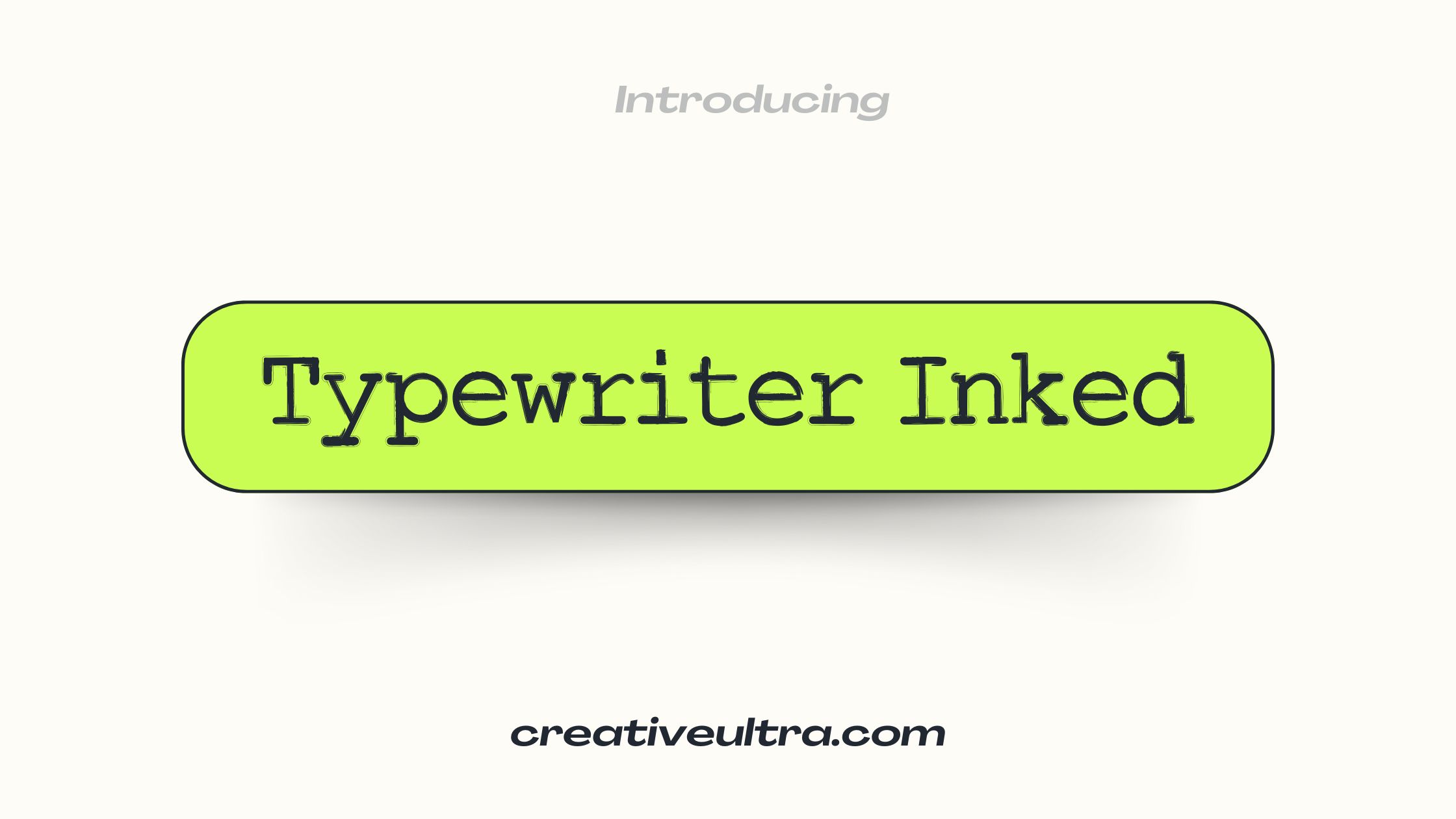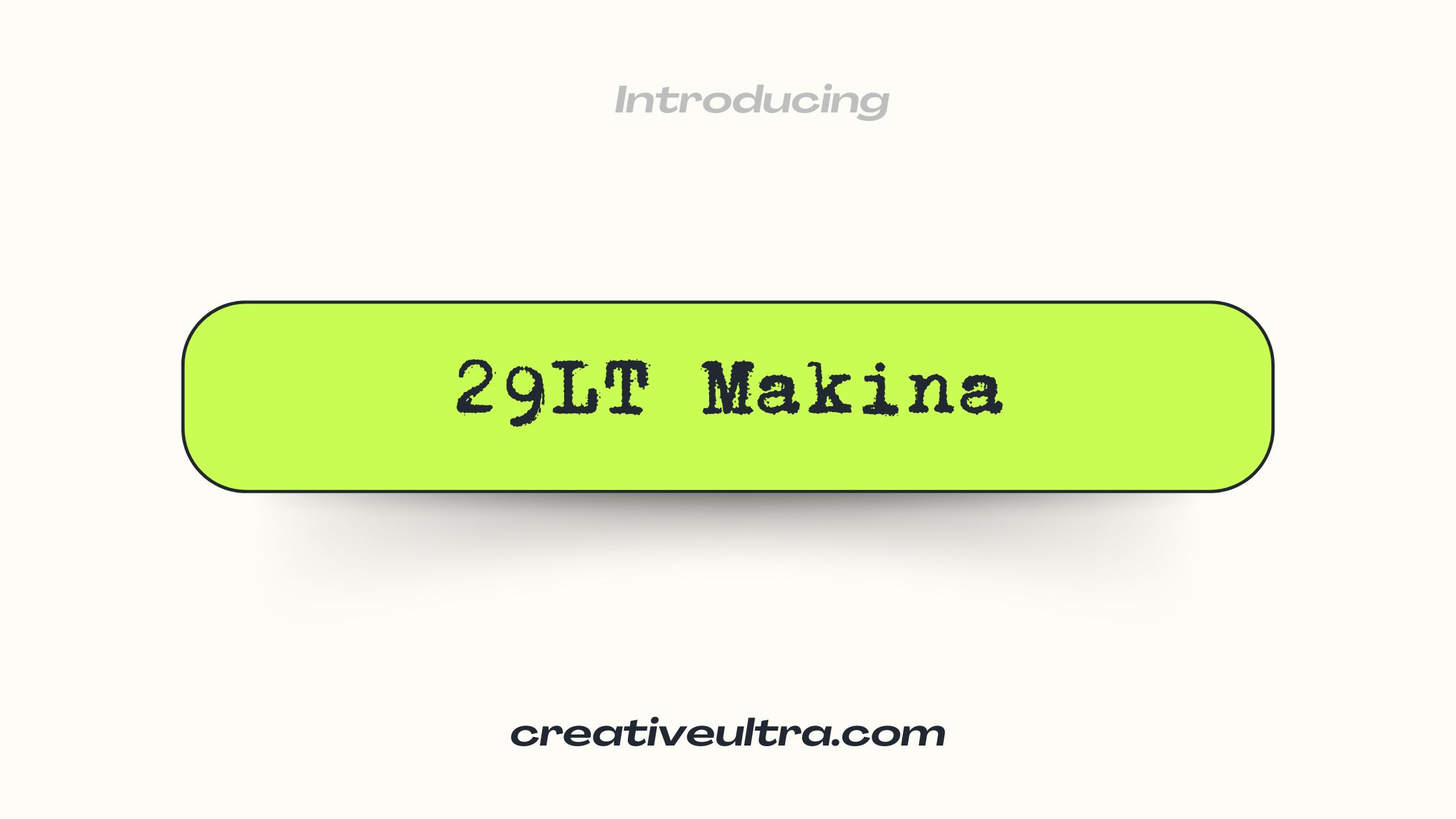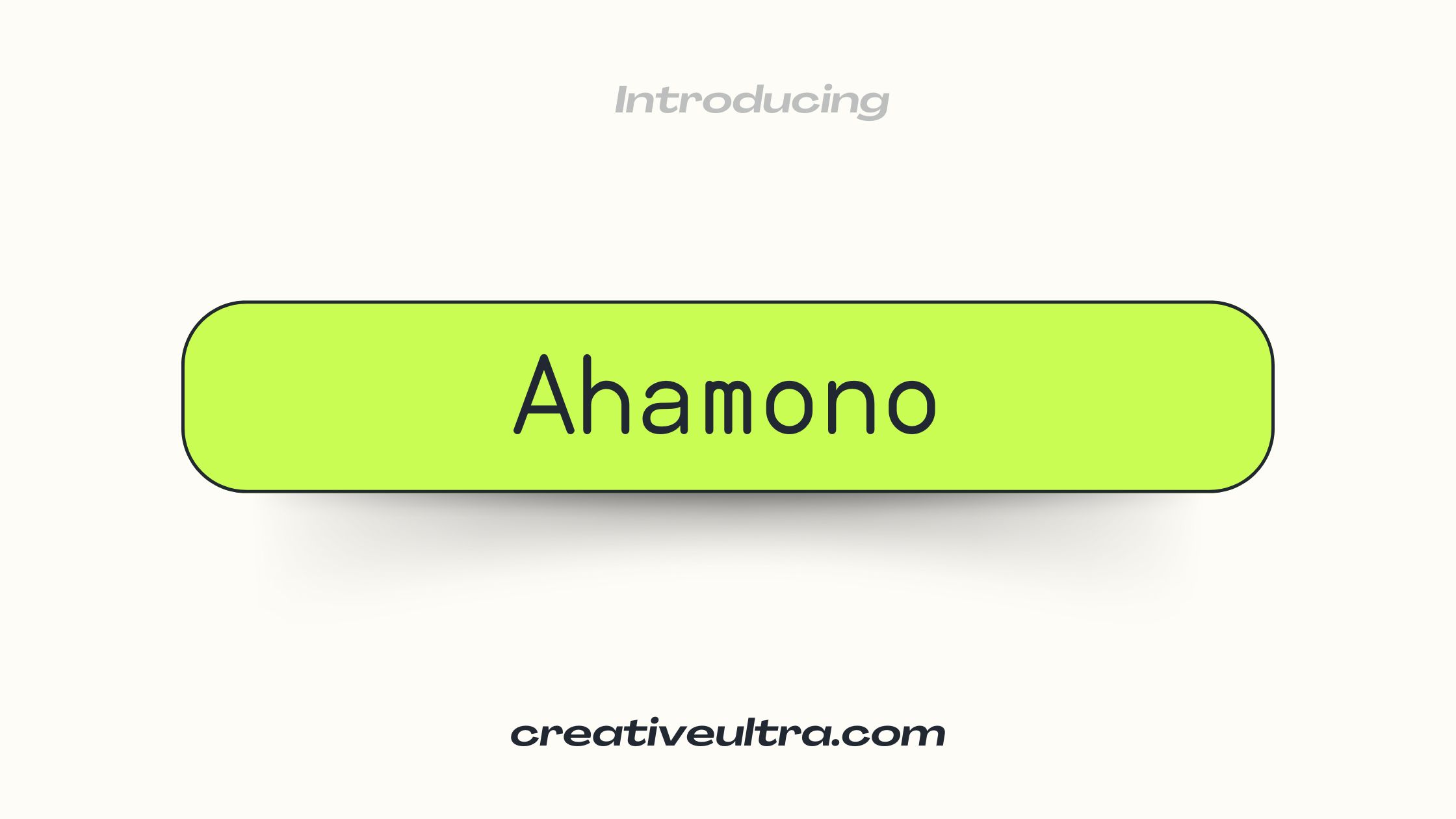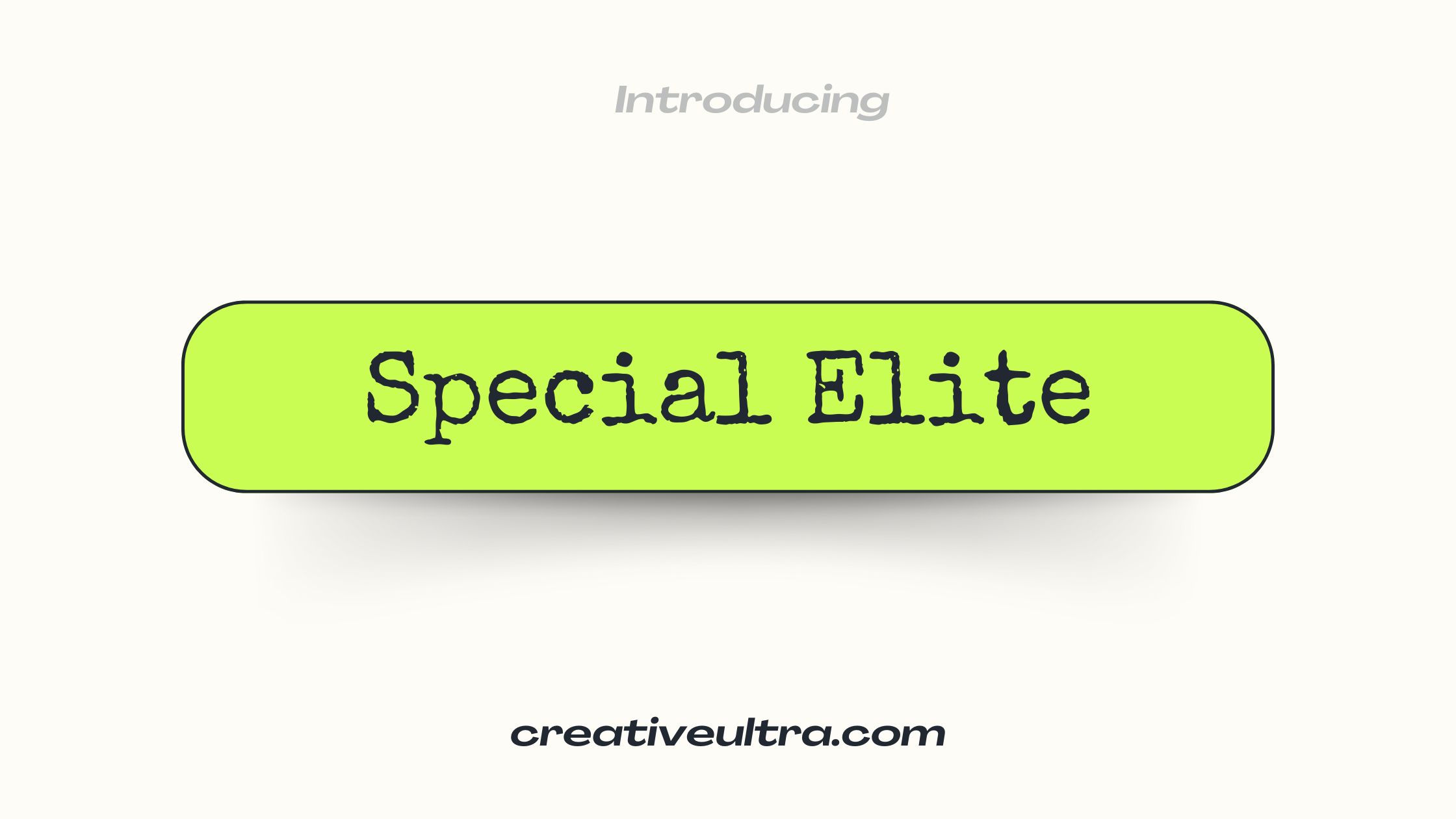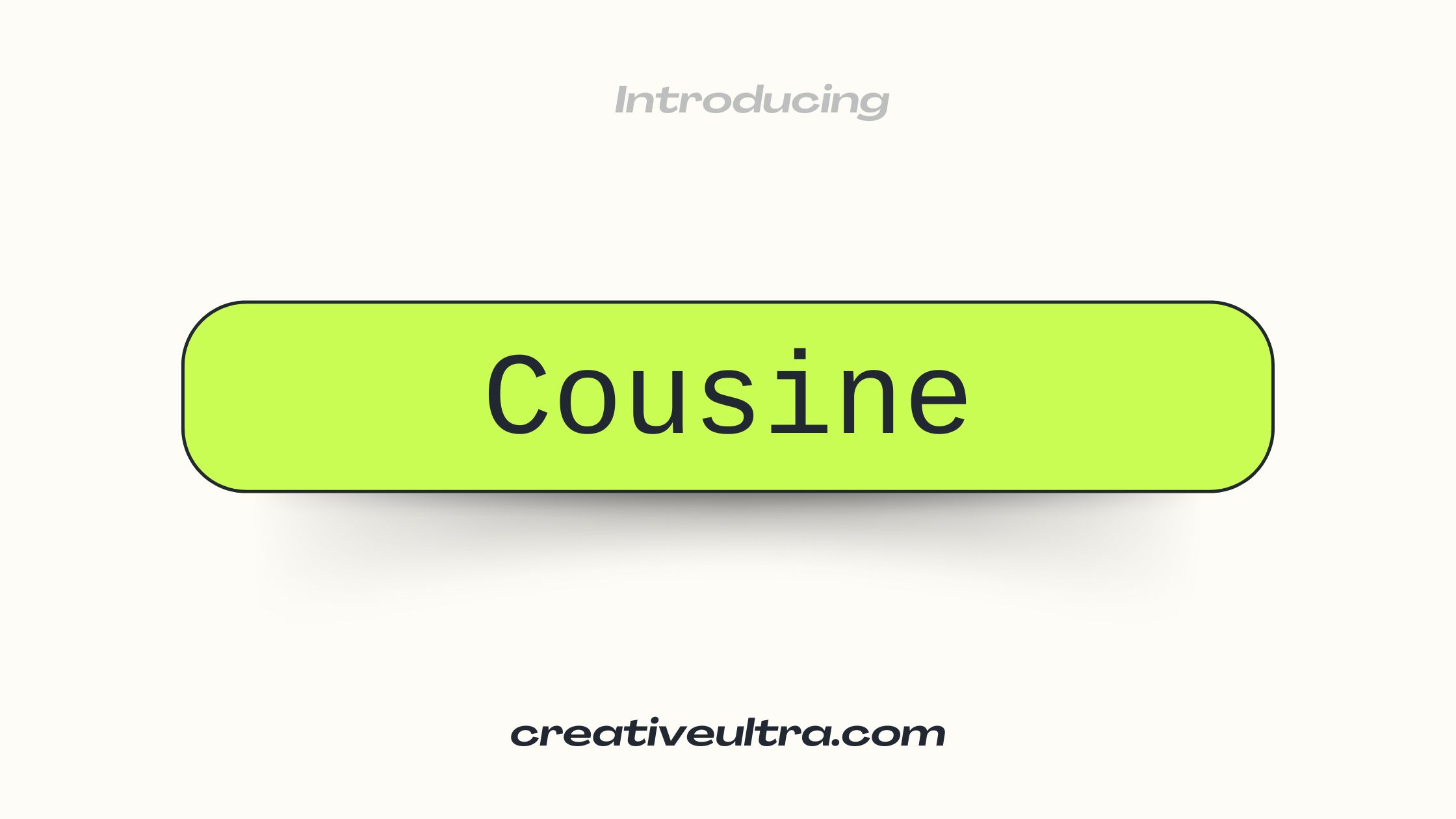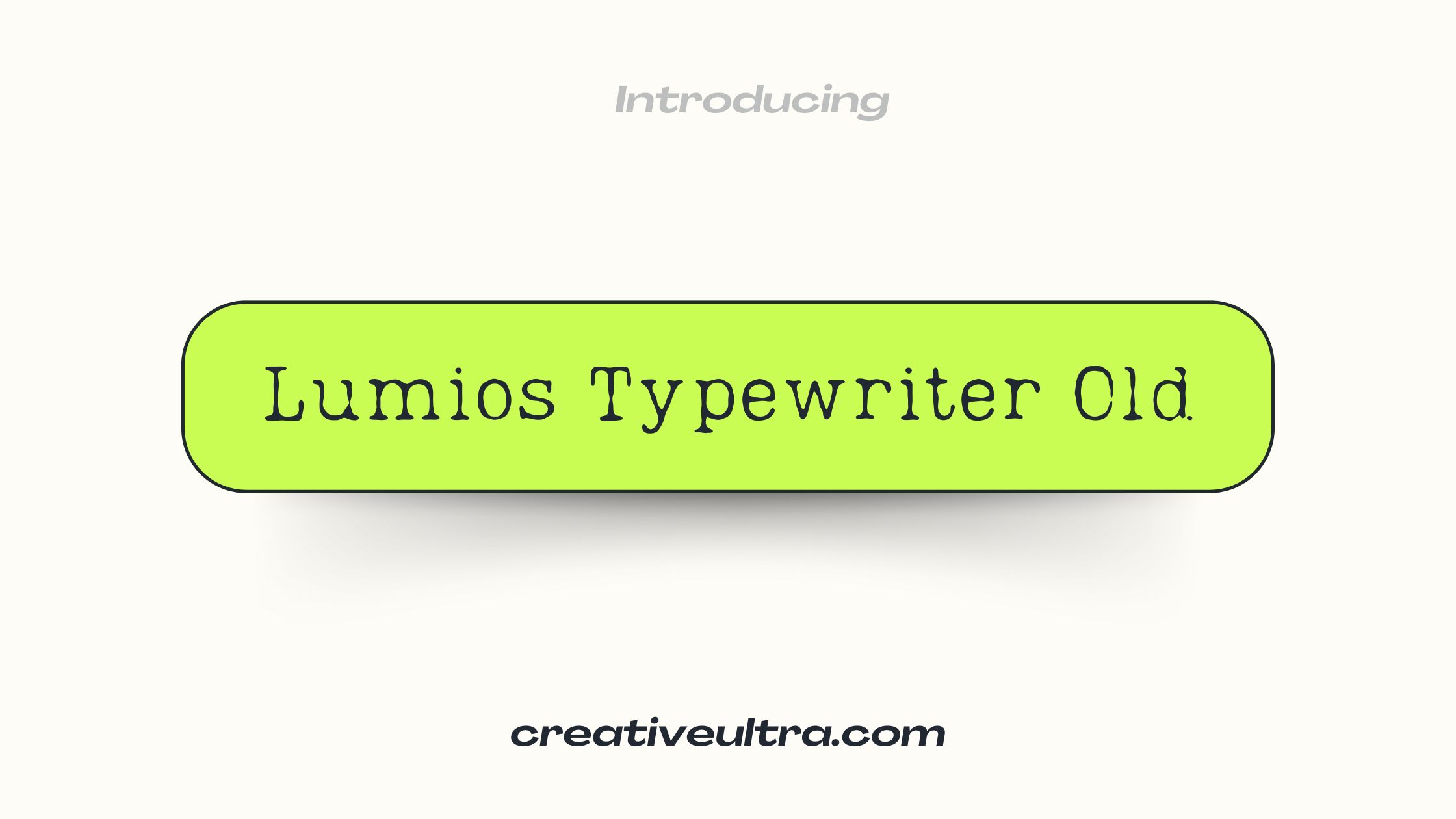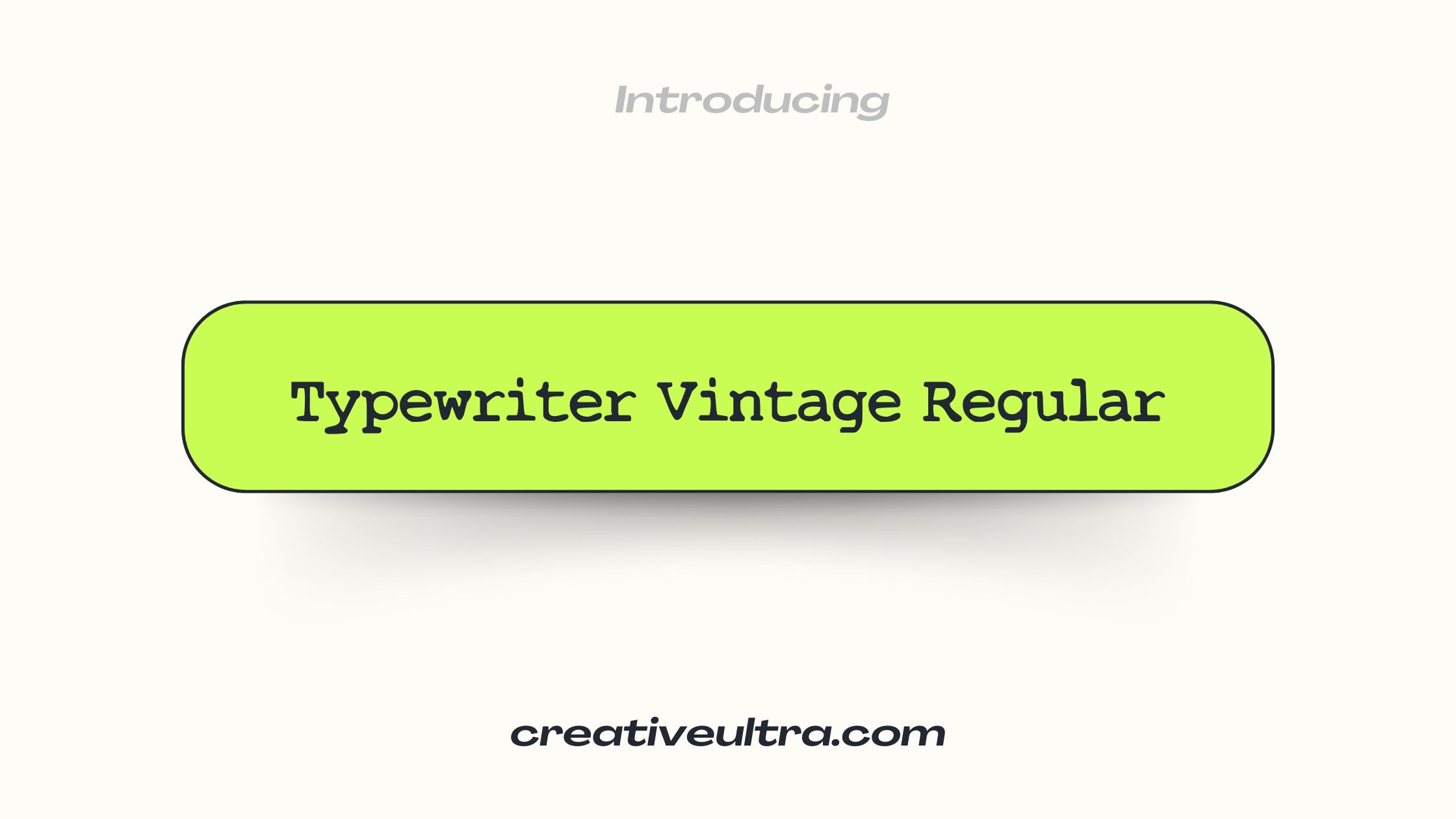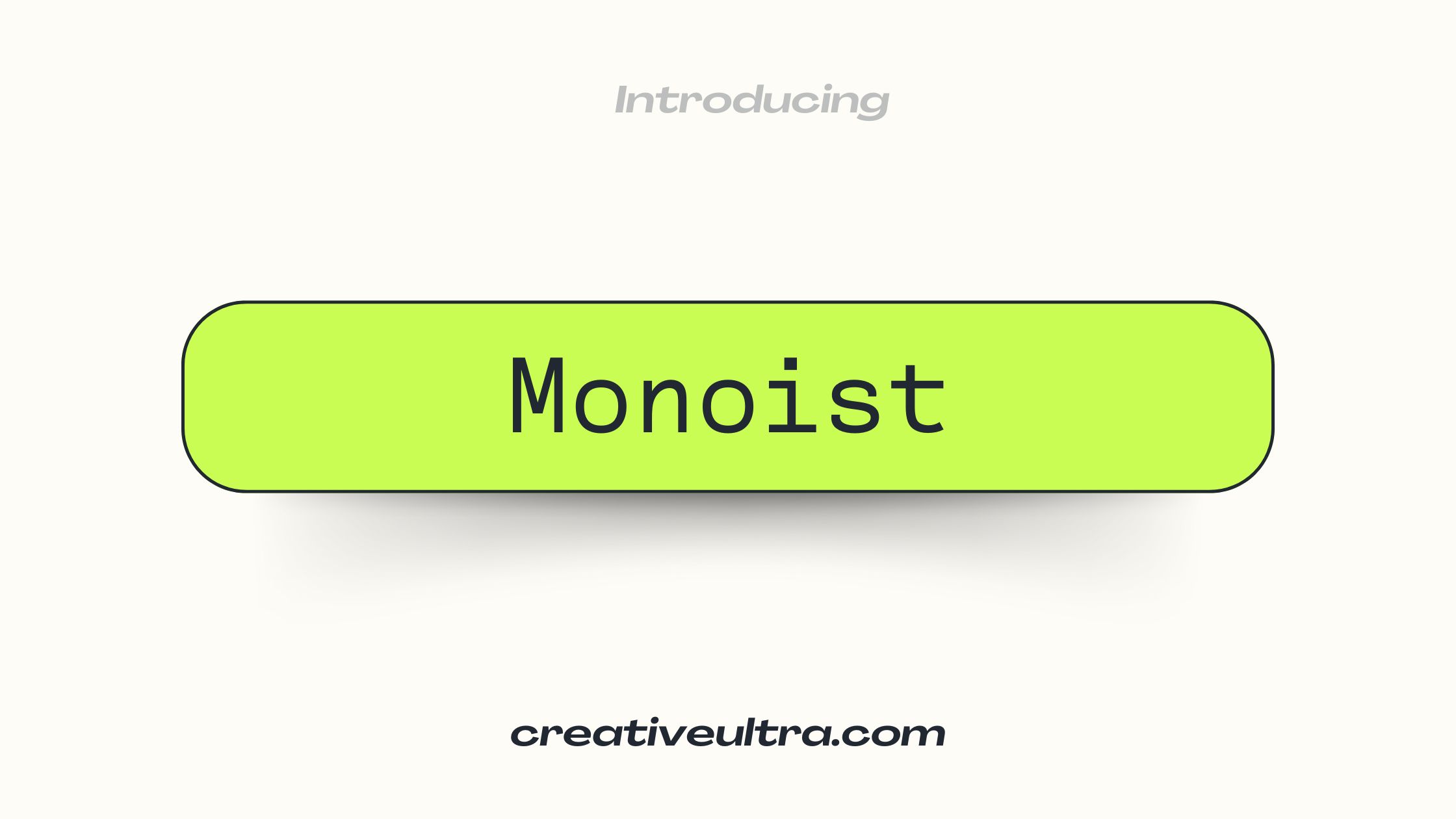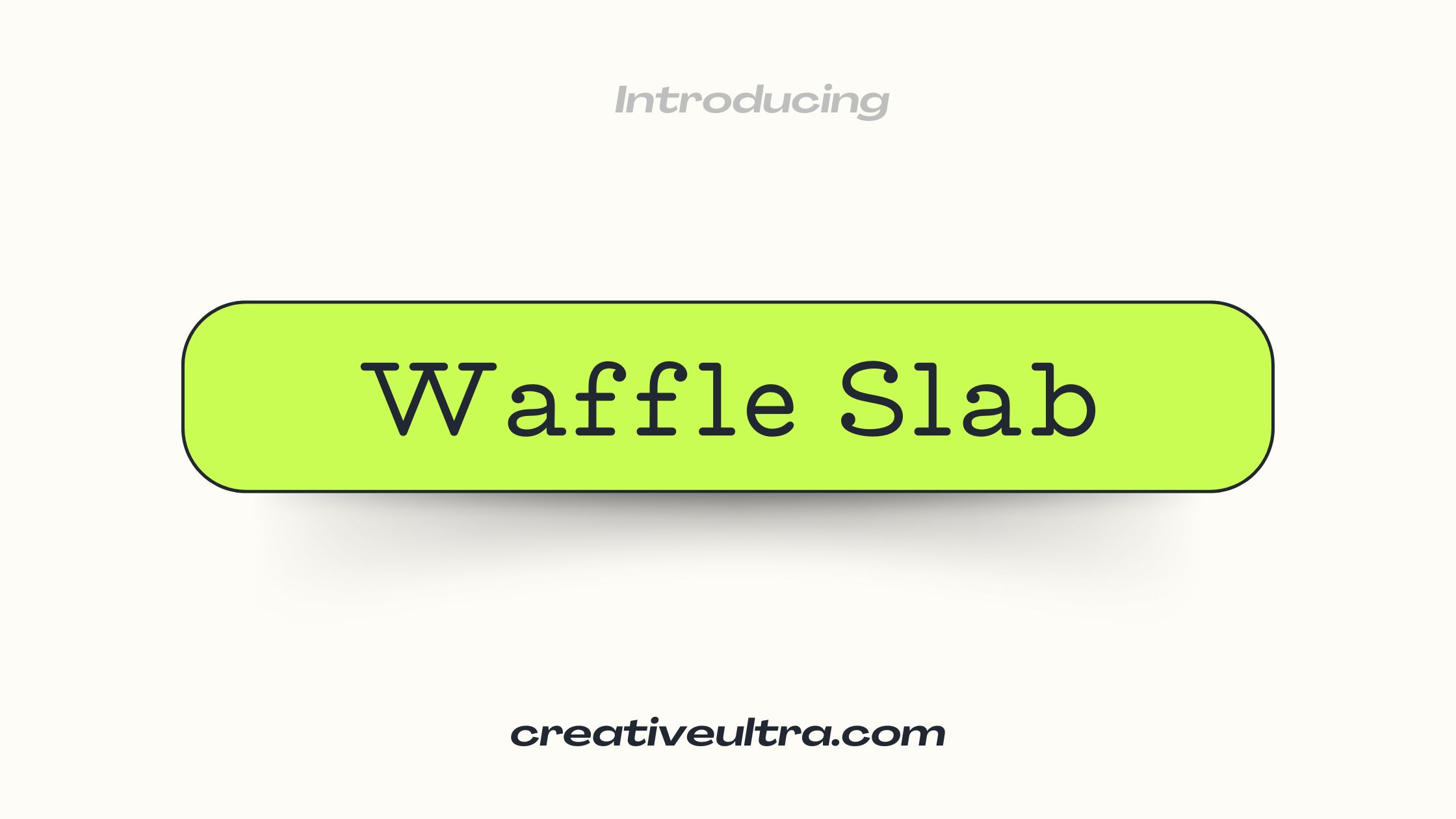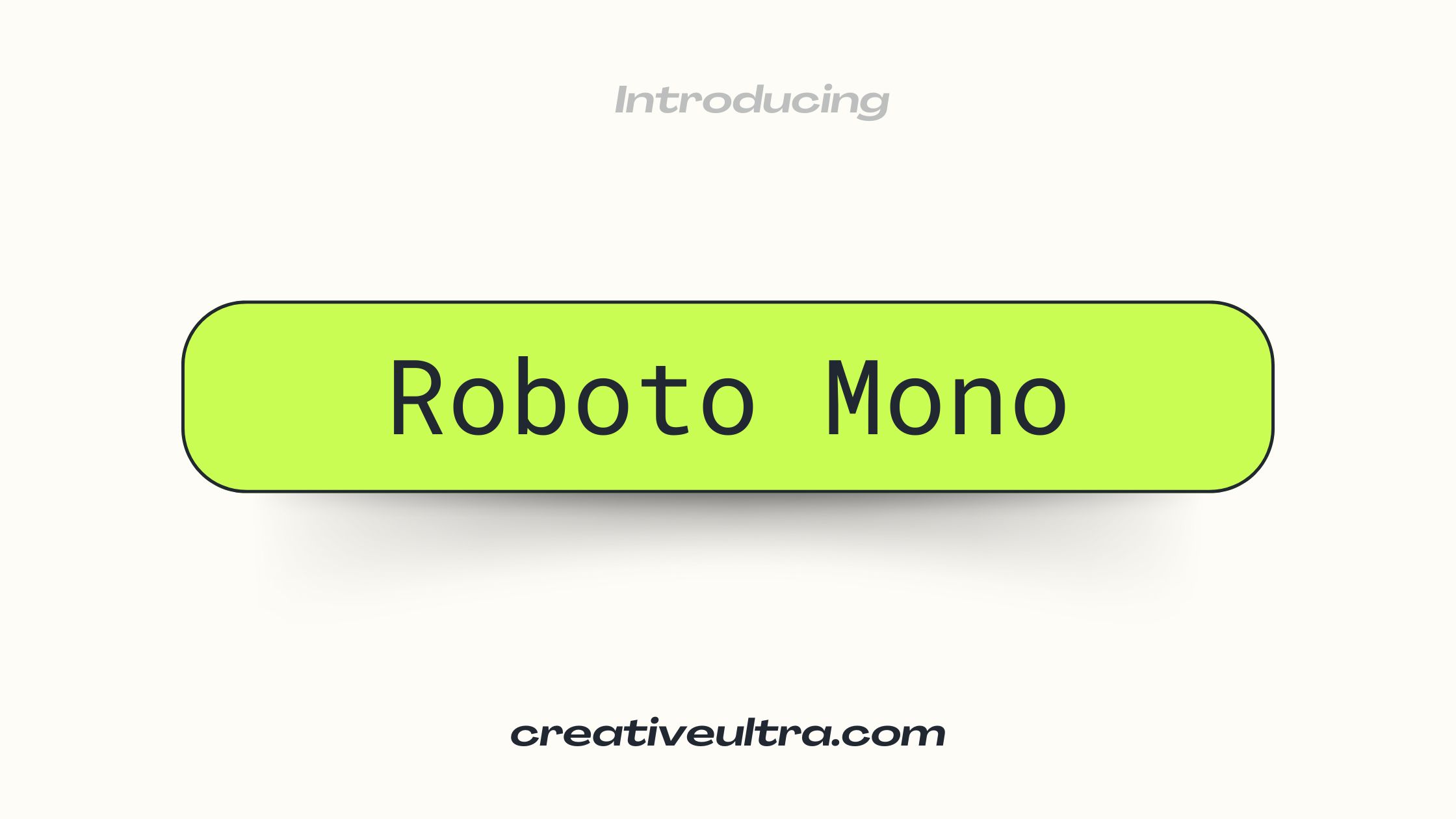
22 Best typewriter fonts in Canva for 2025
Want to make your designs stand out in 2025 with the best typewriter fonts? Not anymore! Modern creations look more classic and traditional when they use typewriter fonts. They give your work a unique feel and a feel of nostalgia that can make it stand out.
The popular design tool Canva now has more fonts, and these new typewriter styles are great. There’s a typewriter font for every need, from rough, old-school ones that look like ink on paper to smooth, newer ones.
We’ll show you the 22 best typewriter fonts in Canva for 2025 in this article. We are going to show you what makes each font unique and how to use them in your work. You can use these fonts to give your work personality and style, whether you’re making a retro poster, an elegant invitation, or a personal appeal for your brand.
Best Typewriter Fonts in Canva
Typewriter Inked Font
If you’re looking for a font that mimics the authentic, slightly smudged look of ink on paper, Typewriter Inked delivers. Its rough edges make it perfect for designs that need a retro, old-school vibe.
Space Mono Font
Space Mono brings a modern twist to traditional typewriter fonts. Its geometric, monospaced characters give a contemporary look while maintaining the simplicity and structure that typewriter fonts are known for. Ideal for minimalist or tech-inspired projects.
Established Typewriter Font
With a slightly weathered appearance, Established Typewriter has a worn-out feel that adds character and history to any design. It’s a great choice for projects that need a vintage or historical aesthetic, such as event posters or personal journals.
Lucida Console Font
A clean, monospaced font, Lucida Console is a great balance between retro and modern. Its crisp lines and easy readability make it suitable for both print and web designs. It works well in documents or websites requiring a professional and structured feel.
Courier Prime Font
A widely recognized typewriter font, Courier Prime is the go-to for a simple, no-fuss typewriter look. Its uniform spacing and clean letters make it perfect for screenplays, official documents, or minimalist graphic designs.
Rubik Mono Font
Rubik Mono combines the technical precision of monospaced fonts with a playful twist. Its slightly rounded edges and modern design make it ideal for casual projects like social media graphics or fun branding designs.
True Typewriter Font
For an authentic vintage feel, True Typewriter captures the irregularities of real typewriter print. Its uneven letter spacing and subtle imperfections give it a realistic old-school charm, perfect for retro-inspired designs.
Carollo Playscript Font
While not your traditional typewriter font, Carollo Playscript has a vintage script feel that mimics the flowing hand of typewriter-like letters. It’s a great choice for invitations, letterheads, and elegant branding.
JetBrains Mono Font
JetBrains Mono is a monospaced font often favored by developers for its readability and clarity. Its sleek, no-nonsense design makes it ideal for coding-related projects or clean, modern design layouts.
29LT Makina Font
29LT Makina adds a bit of industrial flair to the typewriter font family. With its mechanical look and bold presence, it’s perfect for projects that require a strong, retro-inspired typeface, like posters or product packaging.
Ahamono Font
A minimalist typewriter font, Ahamono brings a fresh, modern take on the classic typewriter look. Its clean, straight lines are ideal for sleek, simple design projects or modern logos.
Special Elite Font
Special Elite is the ultimate choice for a distressed, retro typewriter feel. Its imperfect letters and ink-bleed style make it a great option for designs needing a worn, vintage look, such as retro movie posters or nostalgic branding.
Cousine Font
Cousine is a versatile monospaced font that combines the classic typewriter style with a modern twist. It’s an excellent option for clean, professional designs while retaining a subtle retro edge.
Lumios Typewriter Old Font
This font recreates the traditional typewriter experience with its bold characters and slightly uneven spacing. Lumios Typewriter Old is perfect for vintage-inspired designs like postcards, menus, or stationery.
Typewriter Vintage Regular Font
If you’re after a bold, vintage aesthetic, Typewriter Vintage Regular is a fantastic choice. Its heavy characters make a strong impression, ideal for posters or logos needing a vintage yet bold statement.